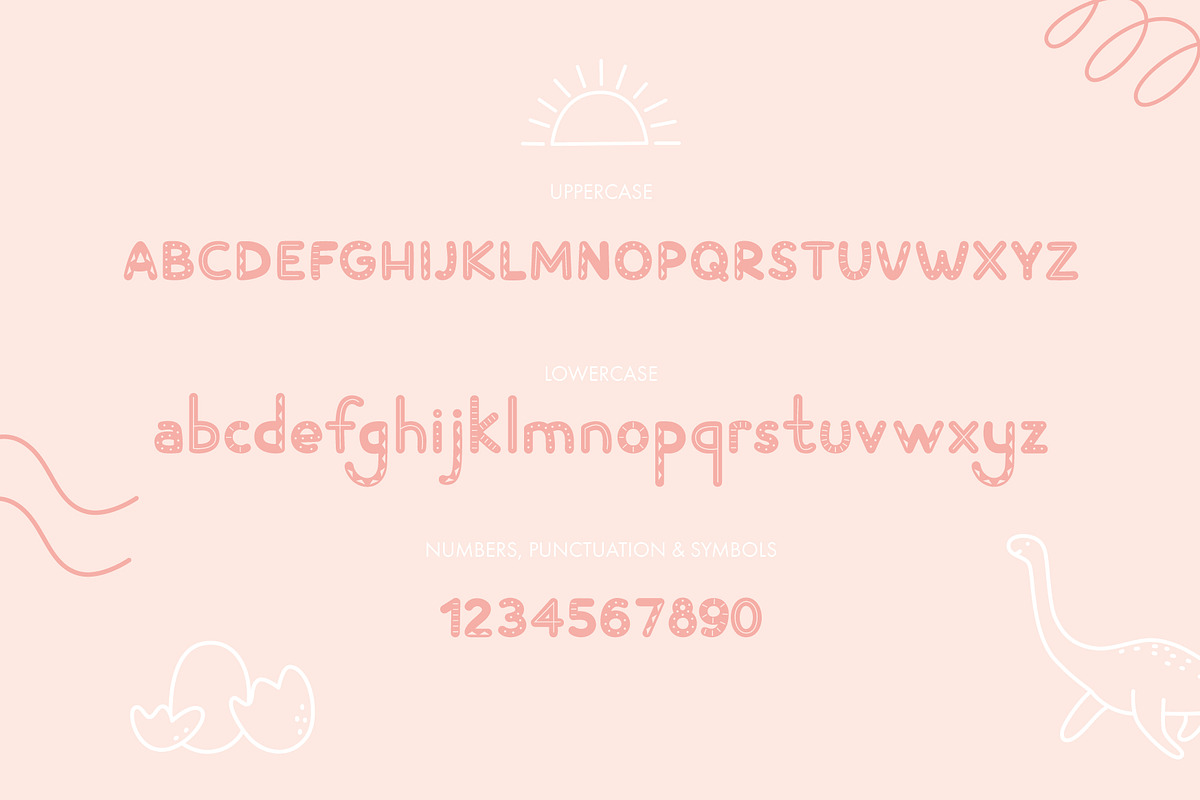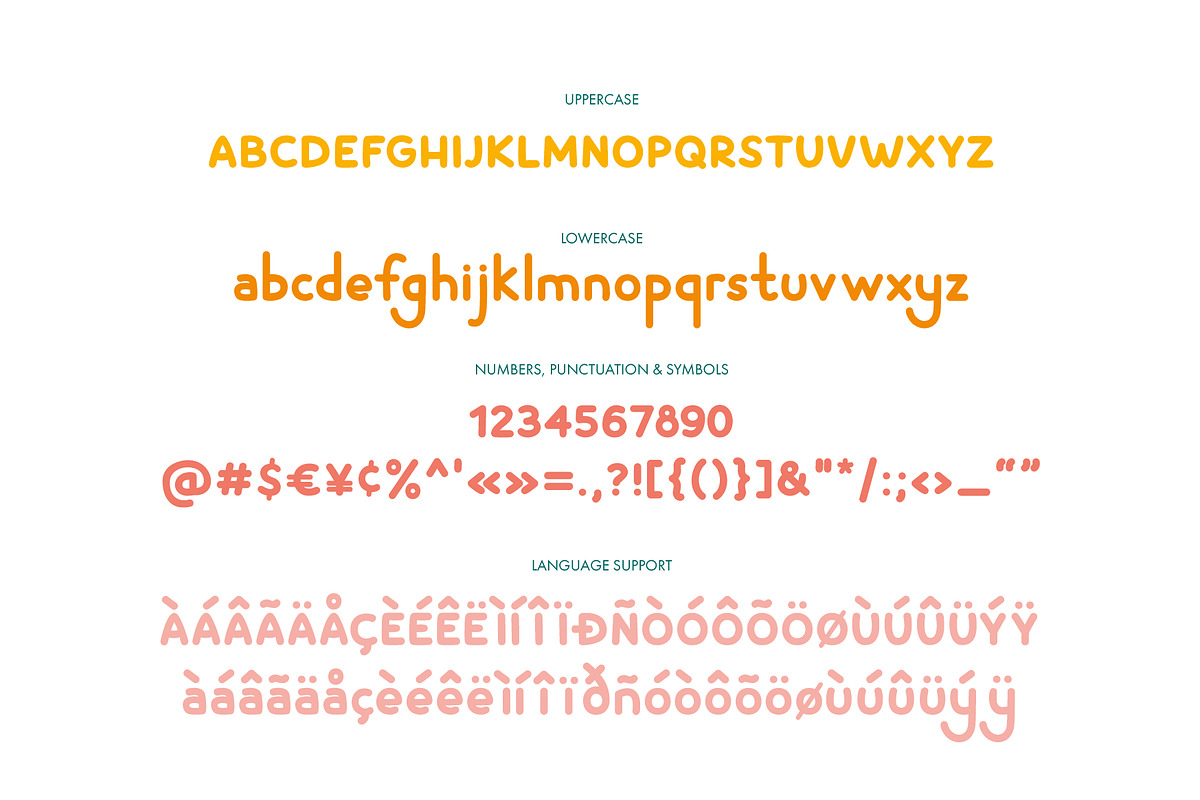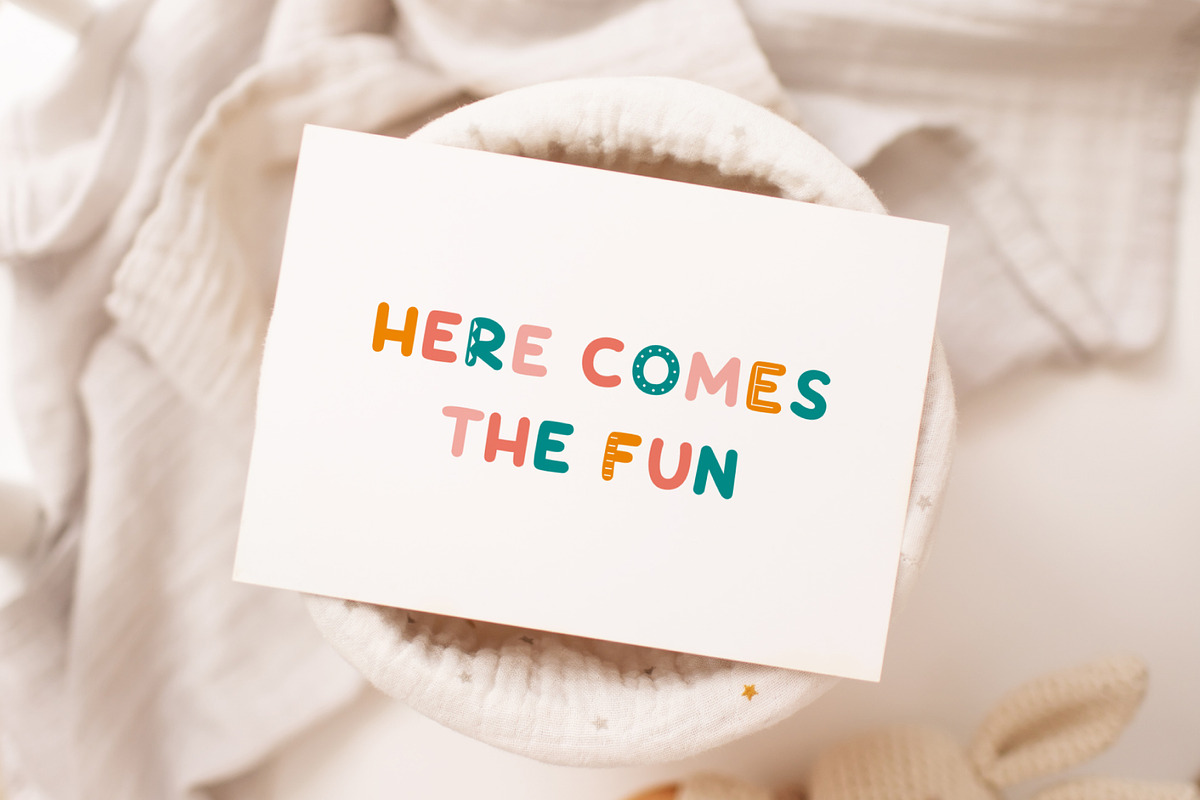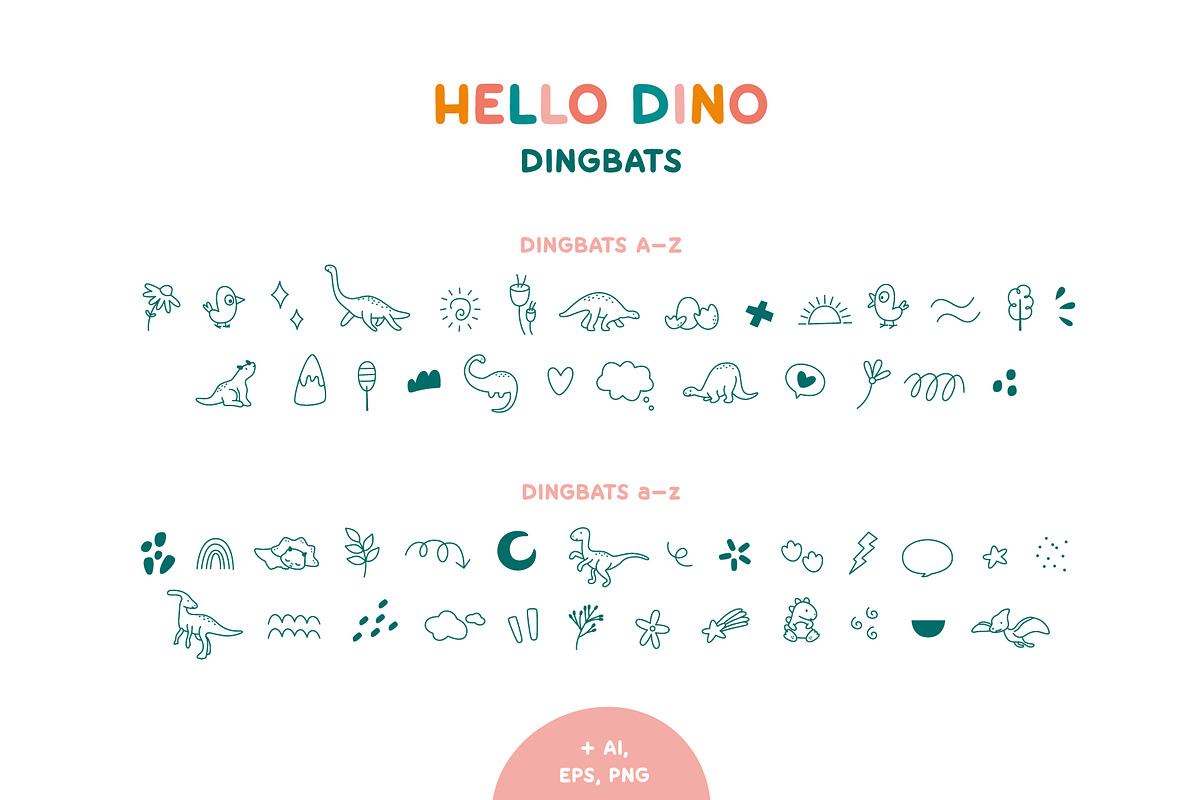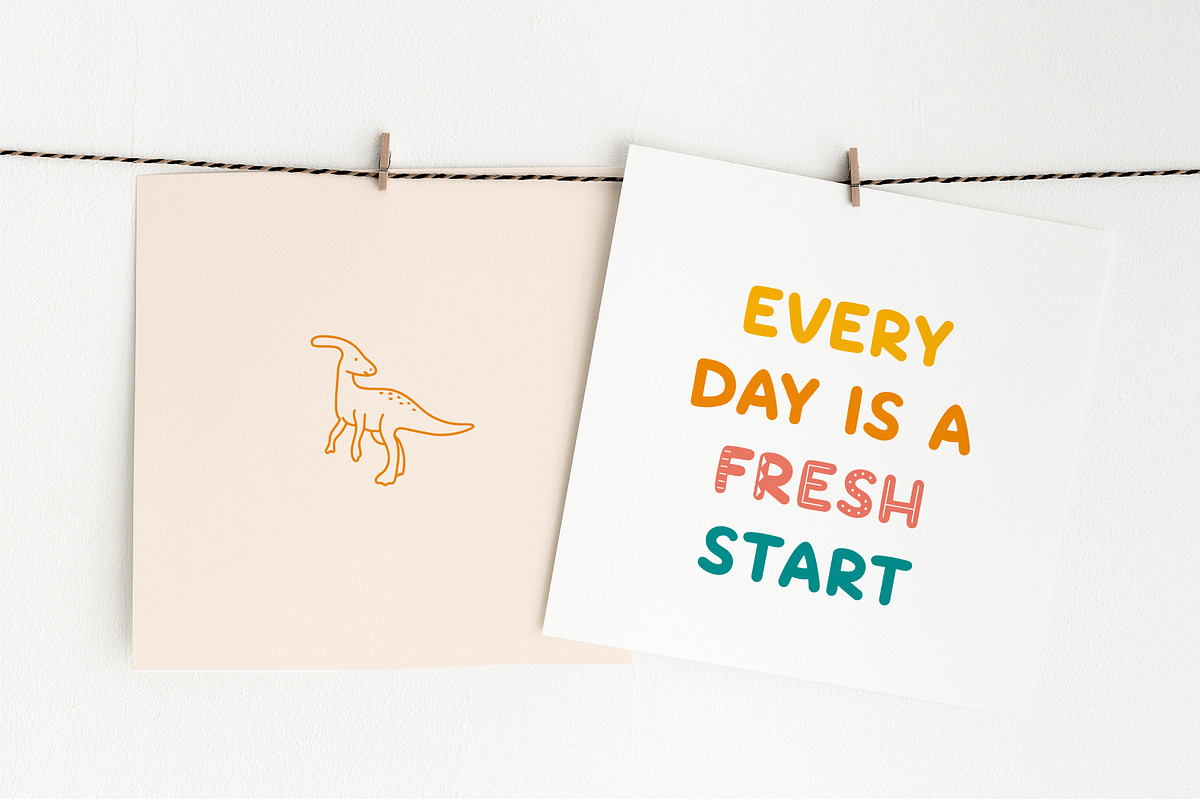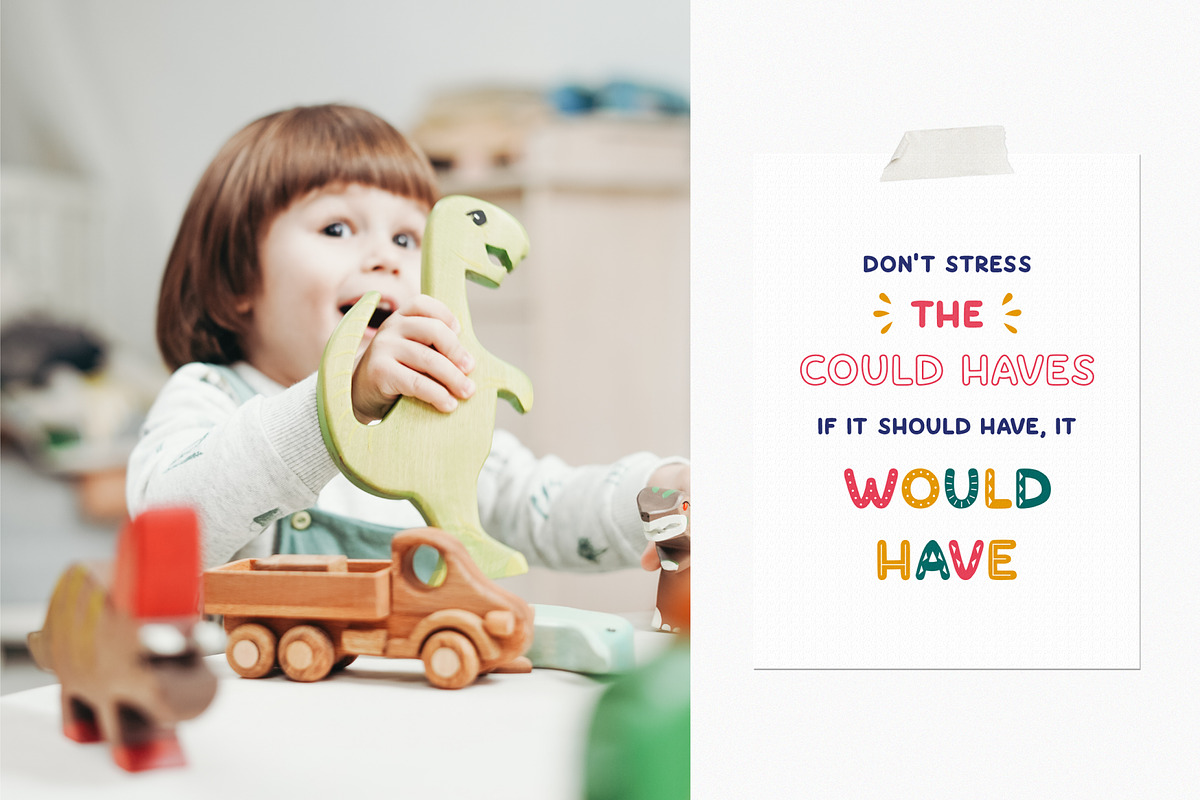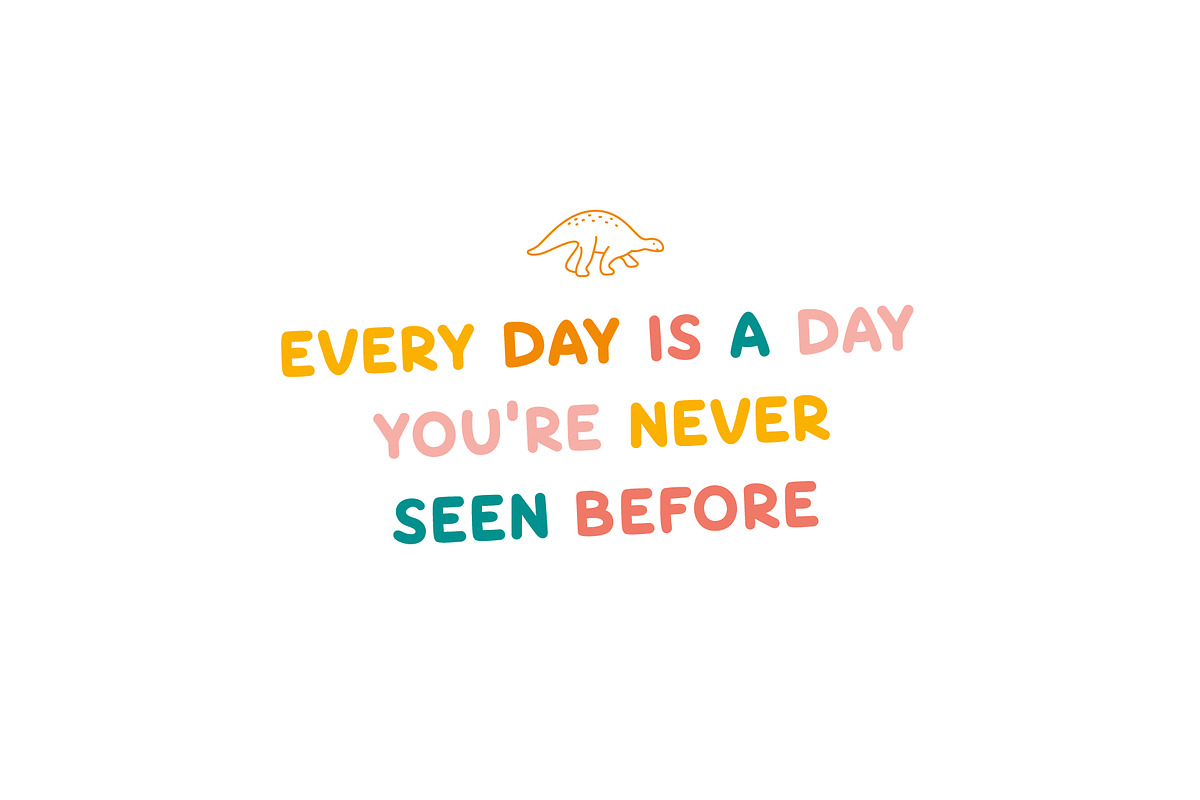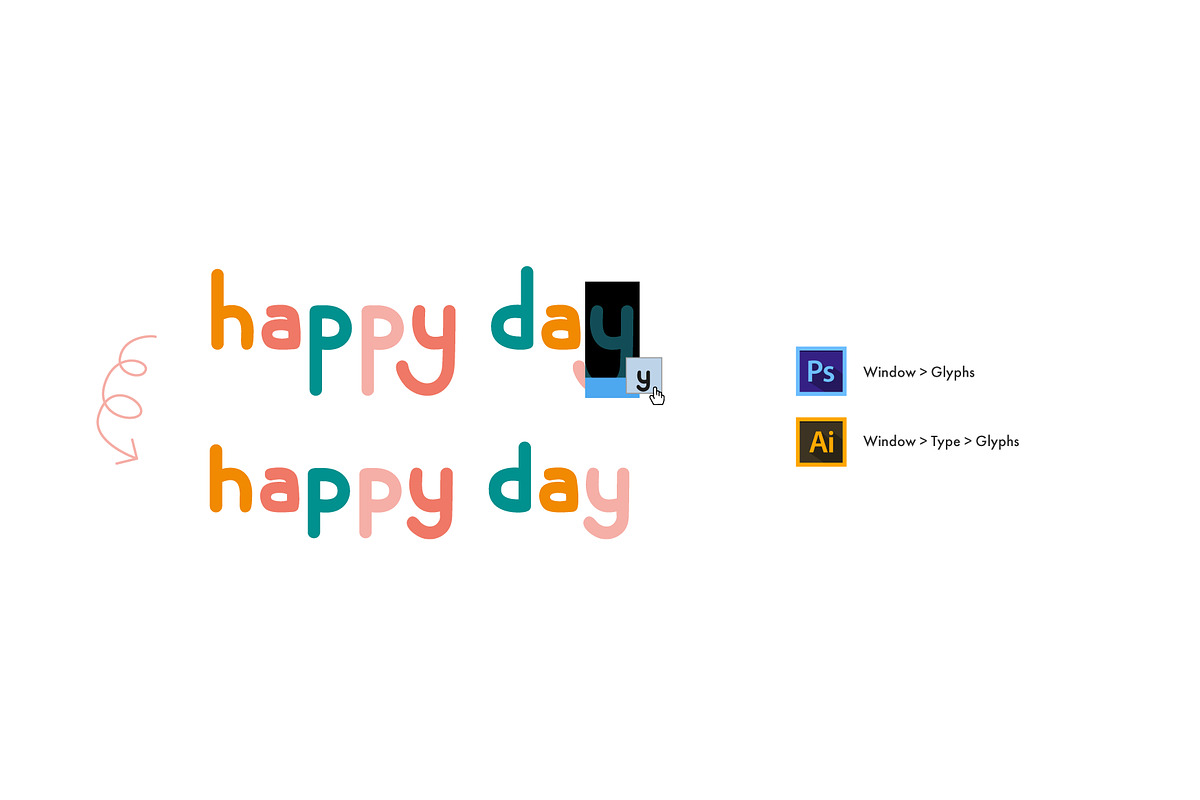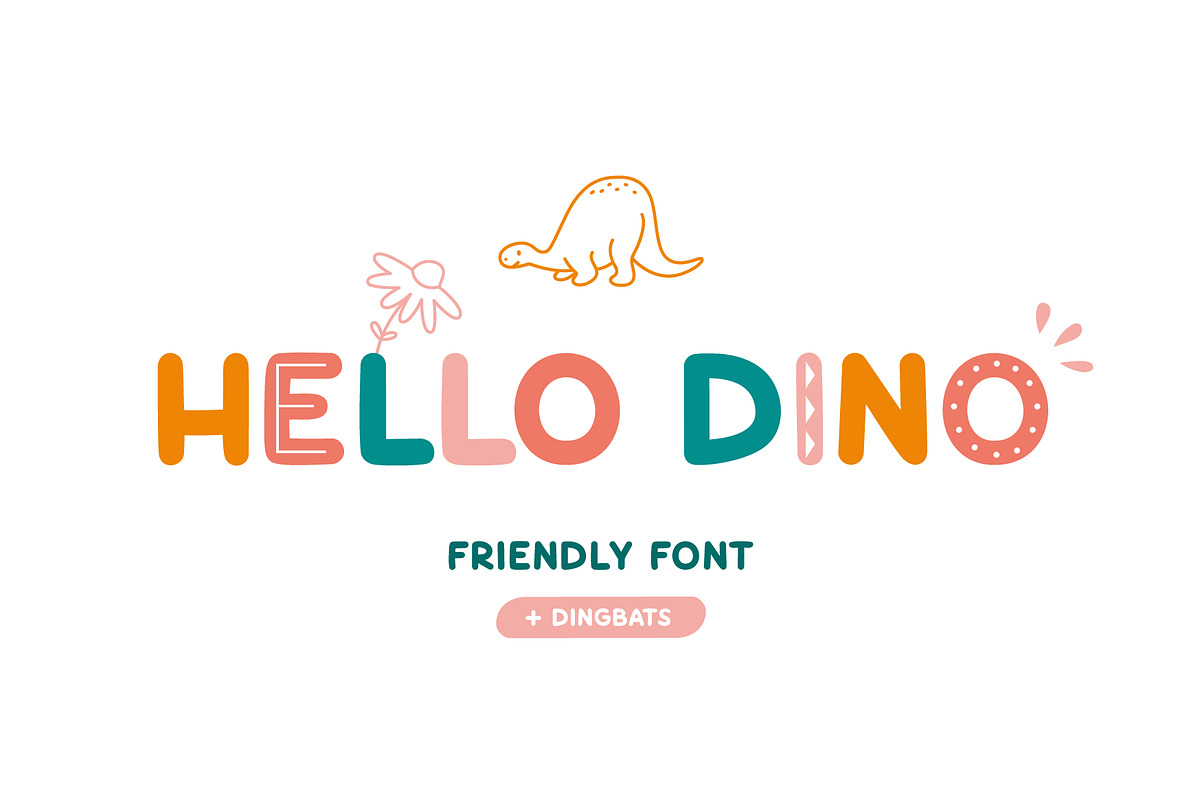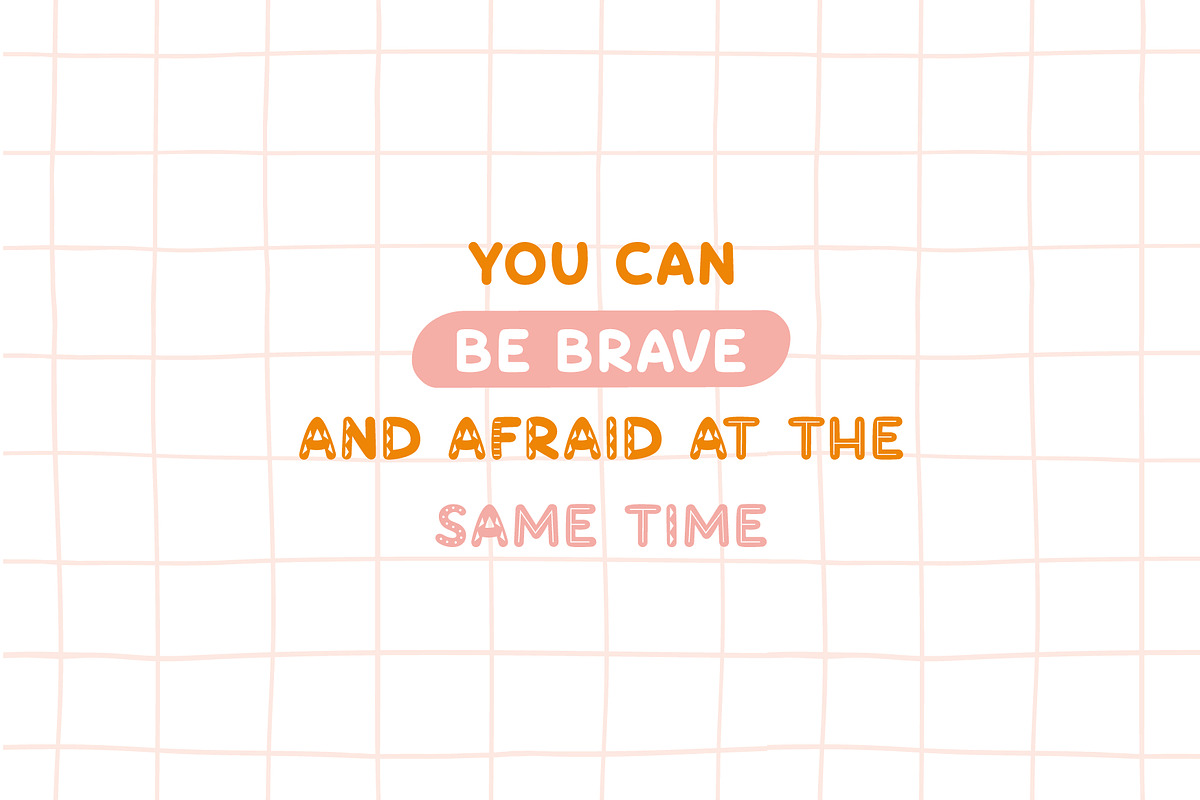
Hello Dino | Friendly font
Hello Dino - friendly handwritten font and dingbats, ready to make your design looks great and fun! :) Use for quotes, greeting cards, invitations, posters, business cards, presentations and more!